Best sports fonts play a crucial role in creating dynamic branding. Generally, you need eye-catching, bold, and energetic typefaces to capture the essence of competition. So, let’s explore these strong and speedy fonts to pack some punch into your next designs!
21 Best Sports Fonts for Your Brand
What font did early graphics use in dynamic branding? Well, for the sporty designs, there’s gonna be some slab serif fonts like Retrock and Gonzales. But as time goes on, font development for sporty and dynamic branding widens. Here are some of our best sports fonts for your inspiration!
1. Granite
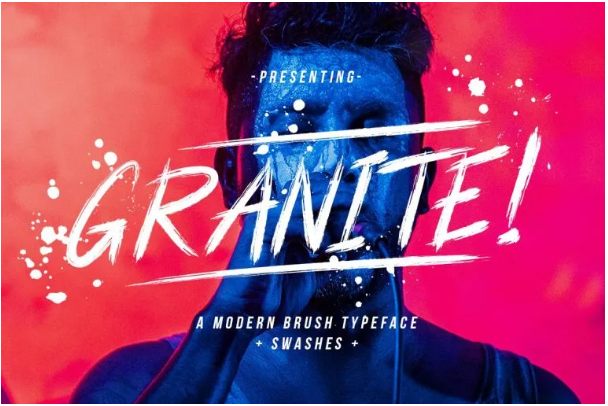
A brush typeface is often a unique choice for sporty and street lifestyle designs. The style sets your brand apart from the usual sleek and tidy typefaces.
2. Western
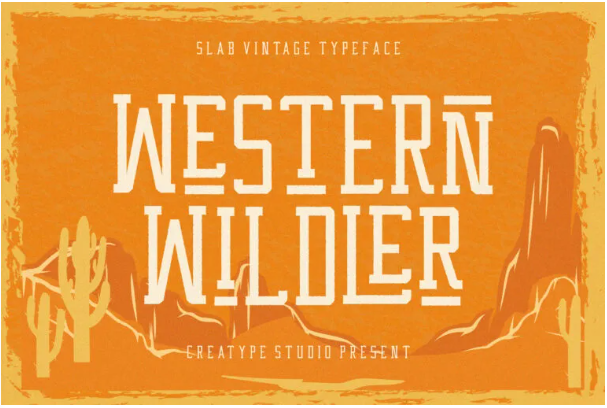
If you’re involving Western sports, Western Wildler is perfect for you. It is a vintage slab font inspired by the Wild West with added retro style.
3. Coutline
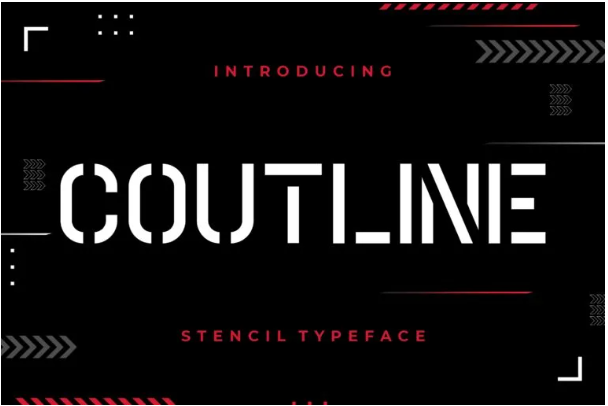
To create a bold and eye-catching impact on your design use a stencil font like Coutline. Other than branding, you can use it for your sporty merch too.
4. Handbrake
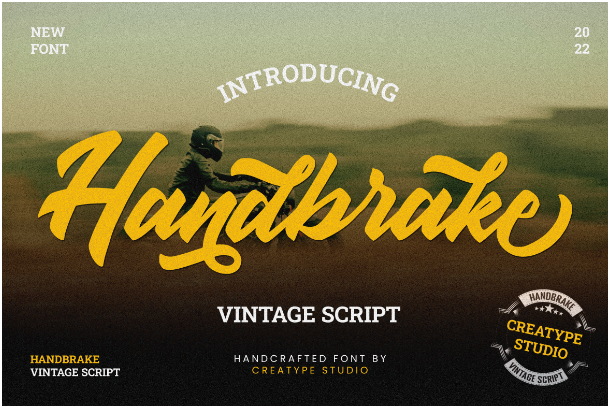
With its slanted nature, Handbrake creates the impression of a dynamic swing. This sleek vintage script also features some elegant loops you can add in its alternates.
5. Modest
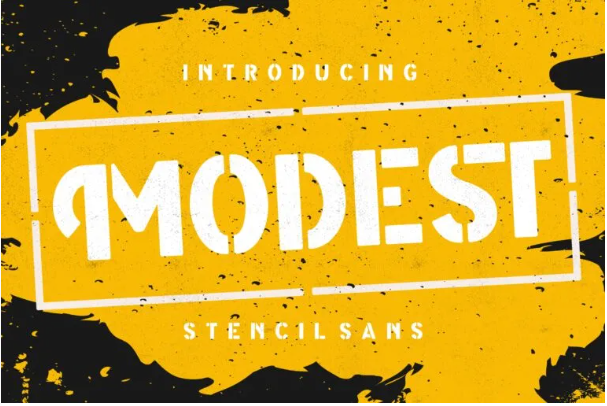
Modest is another stencil font, but this one has some leeway. Besides a bold and blocky font, you’ll have some curves on the alternates and ligatures.
6. Retrock
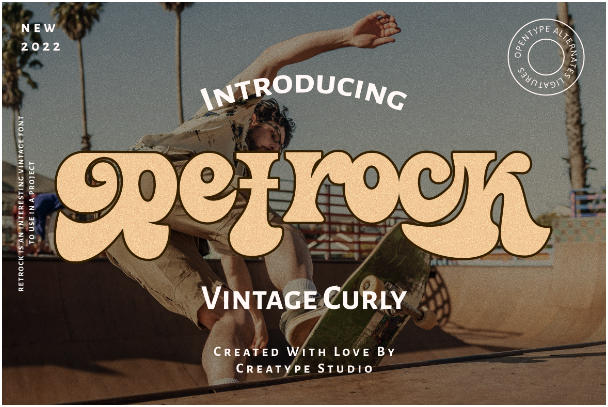
Retrock is a curly vintage font with rogue vibes. The bold and wild representation of each letter makes it stand out from other sports fonts.
7. Enostlim
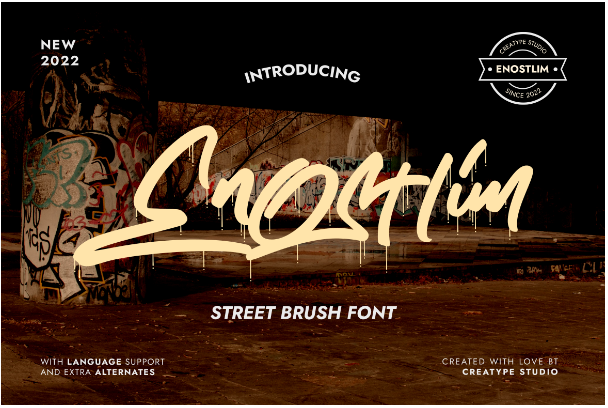
If you’re aiming for a street look in your sports brand, Enostlim is what you’re looking for. This font captures the authentic spray paint look, complete with drips.
8. Jacksonville
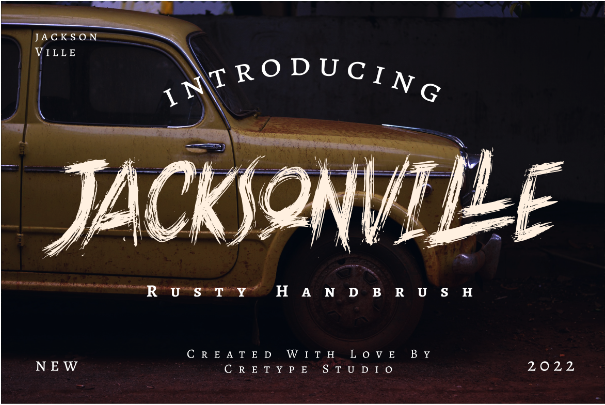
Jacksonville can project masculinity from just a glance. It has bold and strong strokes, ideal for conveying a sense of dynamic motion.
9. Rockfull
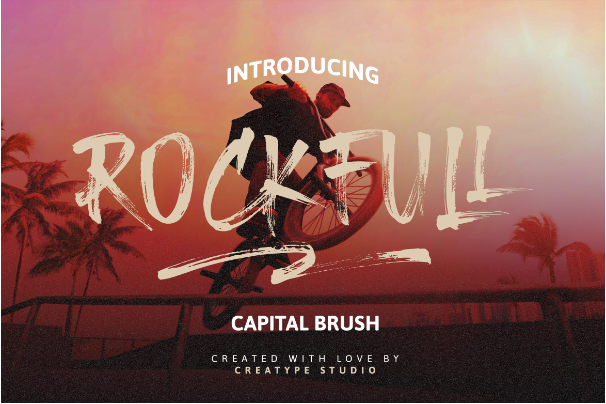
This brush font is perfect for your sports fonts arsenal. It is an all-capital font, meaning you’ll get an automatic bold, loud, and yet stylish font.
10. Salatiga
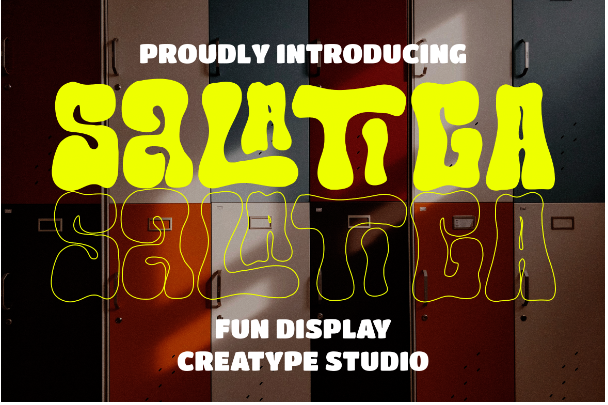
Salatiga is a display font with a very unique blobby design. It is mainly a fun font to use but still has the raw street aesthetic imbued into it.
11. Street Graffity
This font is the digitalized classic graffiti lettering; a perfect font to add a rebellious, anarchic, and lawless impression to your design.
12. Grunge!
If you’re aiming for an indoor sports design, try Grunge! This is a bold brush font with rugged edges to display roughness but with less anarchism.
13. Ethernal
Ethernal font can be used for classic, vintage, or modern designs. With a brush marker this stylish, your sporty branding will have a lasting impact.
14. Halowyne
This font has a versatile impression. At a glance, it’ll be dark and scary, but it’s also fit to highlight the roughness and resilience spirit of a sports design.
15. Breaker
Breaker is a cool and stylish handbrush typeface. It has the characteristic to add some lively vibrant spirit to your sporty design.
16. Banshee
Among the best sports fonts in the list, Banshee is a script font which has a flowy and unstoppable spirit. Its sharp and agile strokes further highlight the wildness it embodies.
17. Herdrock
Herdrock is a brush font with neat edges to fit the clean modern look. This font also has spotty ornaments to liven up your designs.
18. Gonzalles
Even though Gonzalles is bulky, it has a charming calligraphy style among other sport fonts in the list. The font is made using cursive writing and features brush strokes.
19. Galvanis
Galvanis elevates the brush typeface genre with its distinctive approach. Departing from smooth, careful strokes, this font embraces a raw, rigid style.
20. Burning Down!
Burning Down is an inspired script brush font with casual and unpredictable strokes. The unique representation of each letter is the main attraction, it gives your sport design a crispy touch.
21. Billystuck
Billystuck is a stunning signature font with a strong, wild, and quick writing style. This lean and tall font is a perfect combination if you already have a bold and blocky typeface.
Grab these Sports Fonts to Stay Fresh!